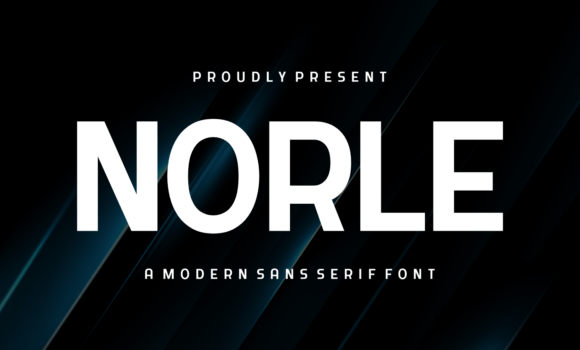
norle
Norle Font – Free Download Introduction to Norle Font Norle is a modern, minimalist sans-serif font with clean lines and balanced proportions. 📸 Preview Gallery 3 images 📌 Product Name Norle Font 👤 Author Creative Fabrica Fonts 📂 Category Explore